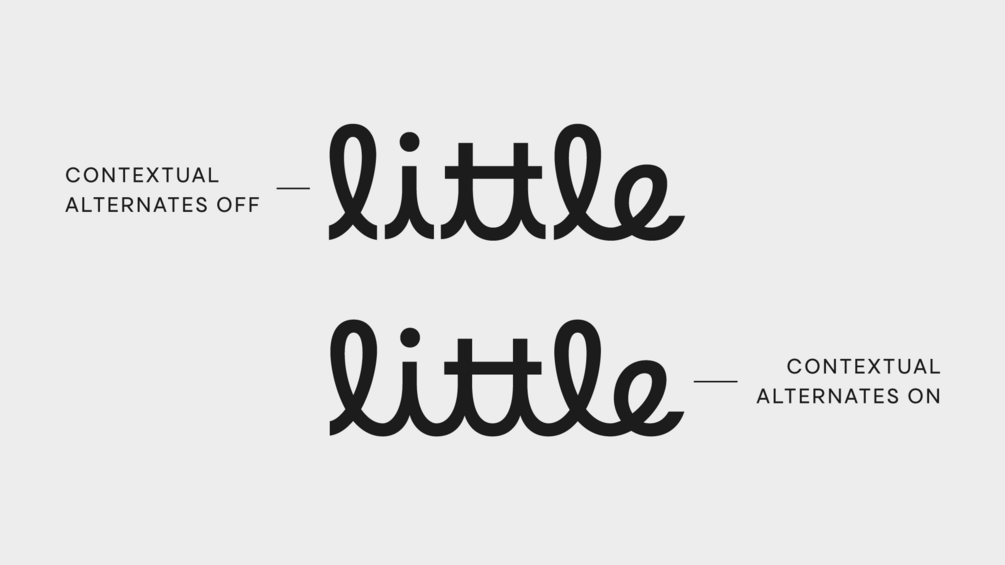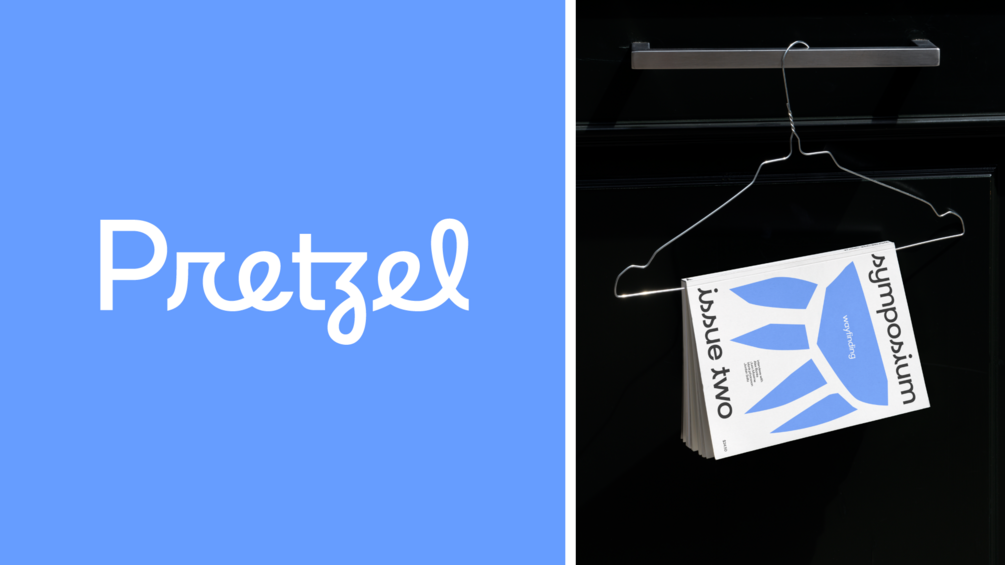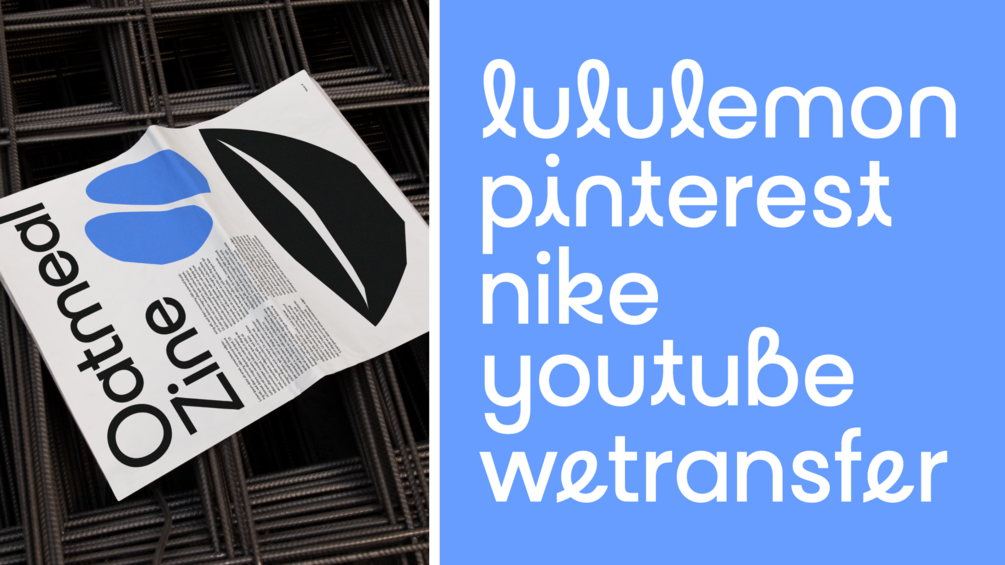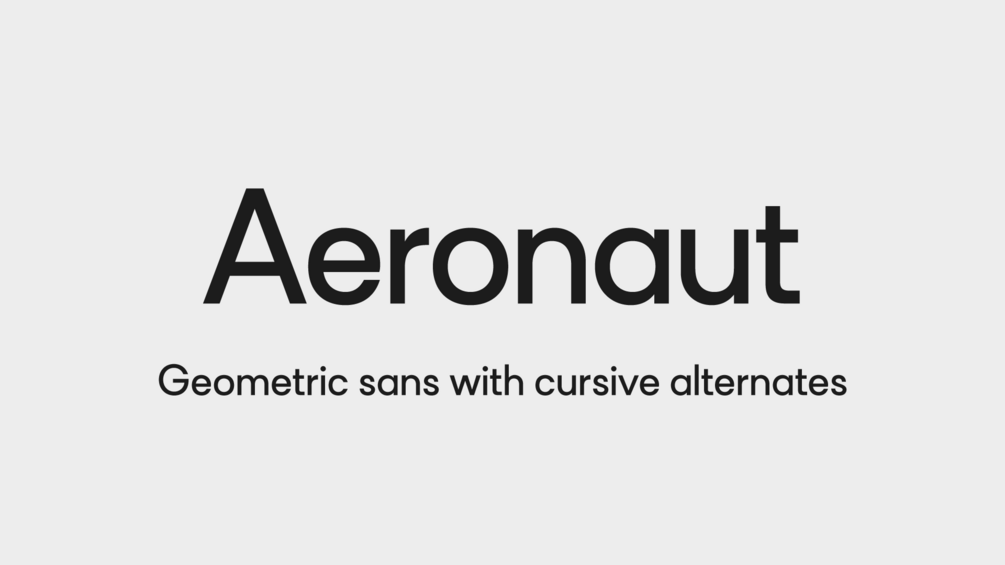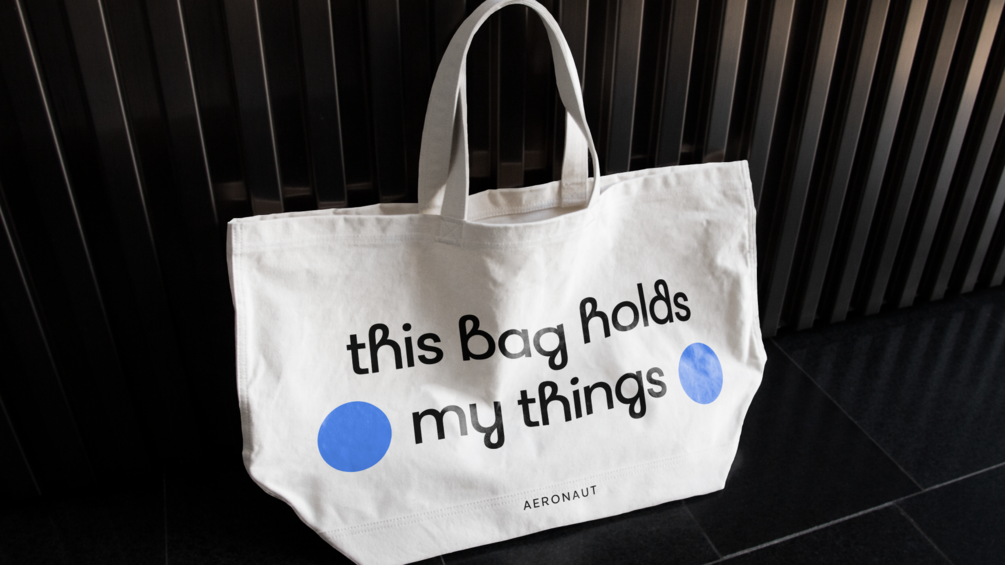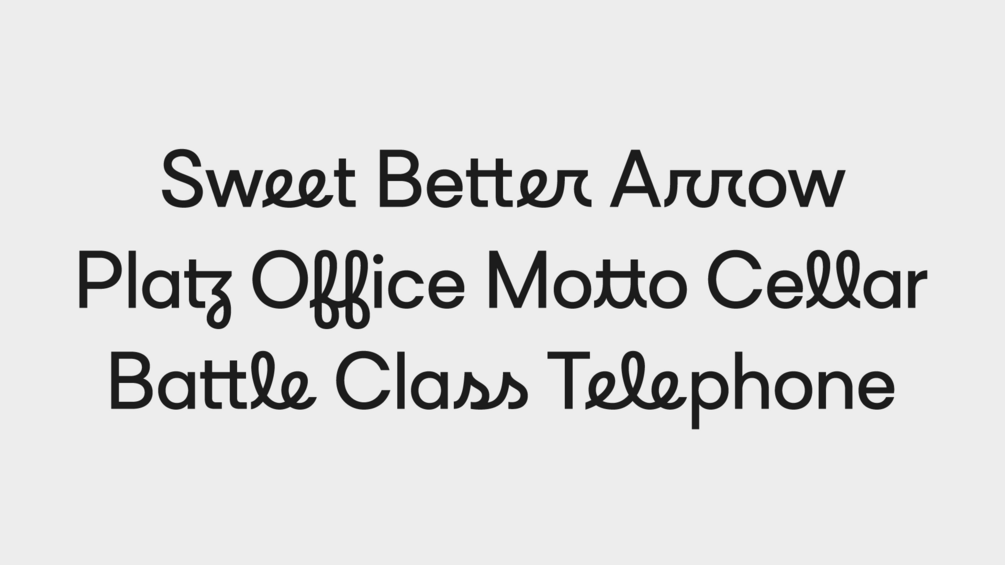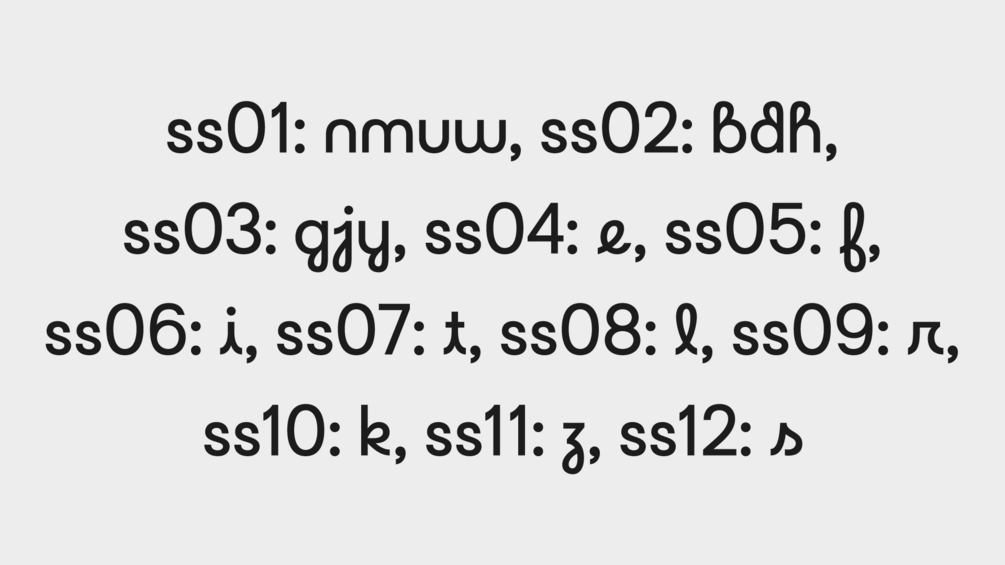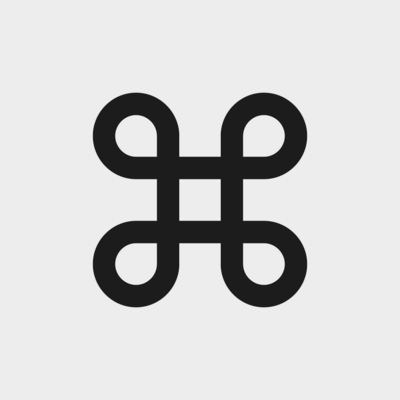
POI Aeronaut
Aeronaut merges the sincerity of a geometric sans with the playfulness of a script. A wide array of stylistic alternates allows you to tailor the look of your design with precision. Try out the complete character set and opentype features for free before you buy!